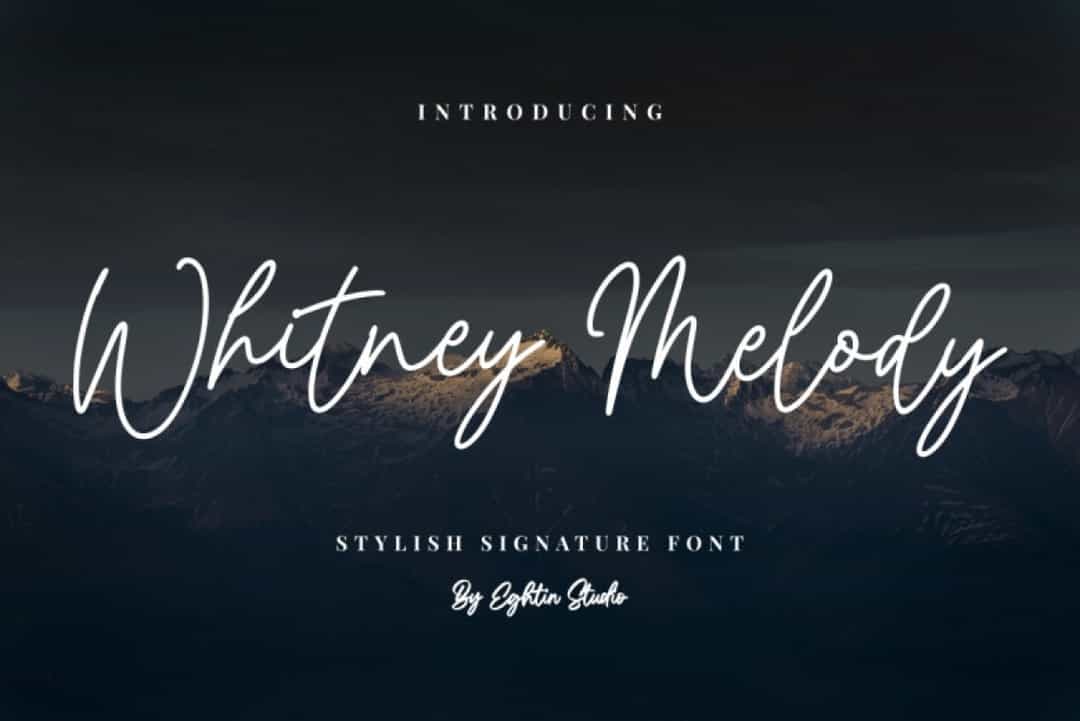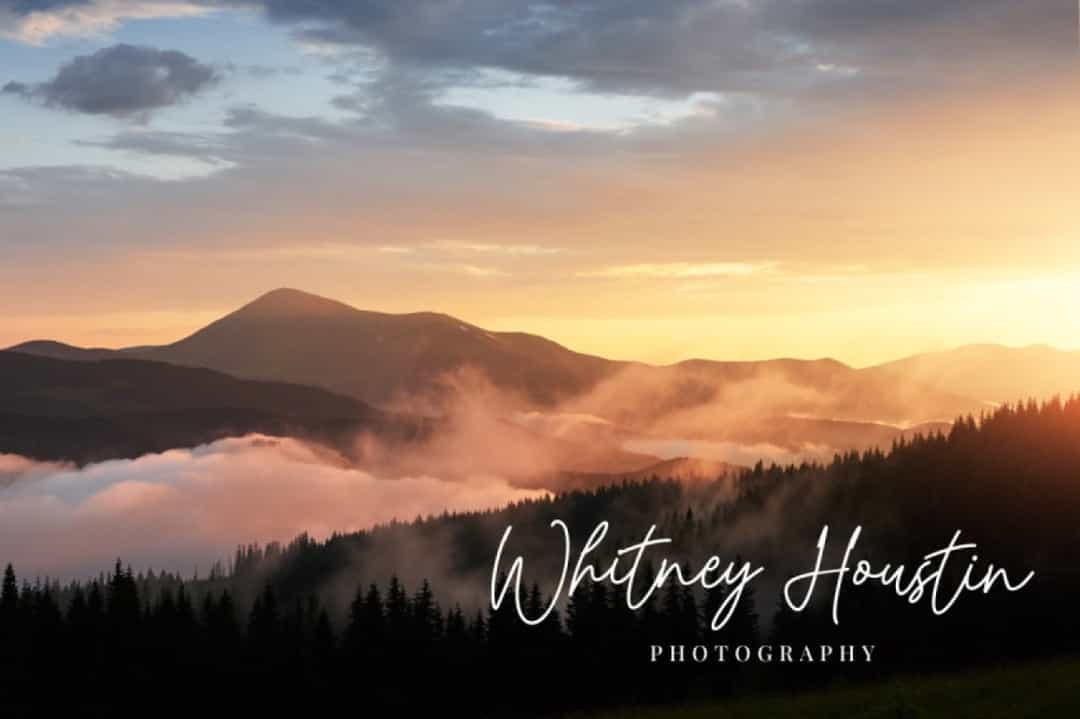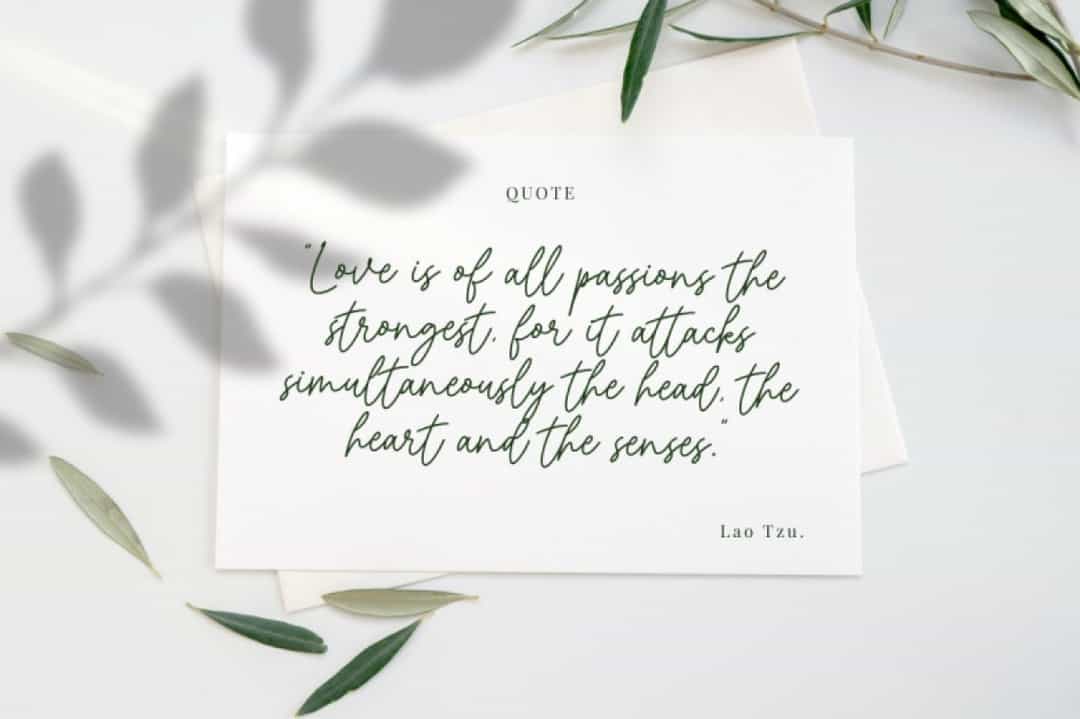
Whitney Melody is a monoline beautiful signature font type, it is elegant, and stylish. It is designed based on calligraphy and the finesse is in the background with clean lines, nice alternates, and nice glyphs for hashtags and decals.